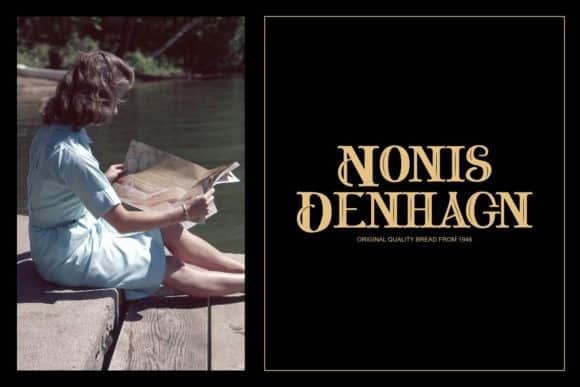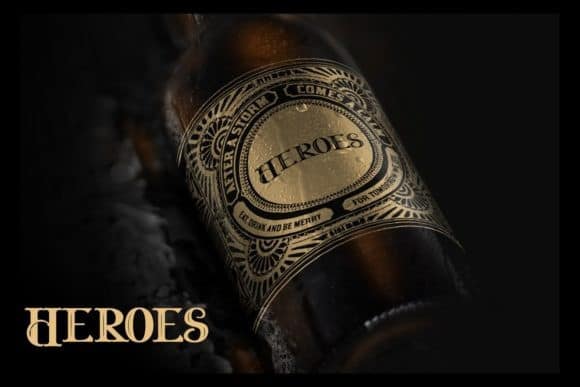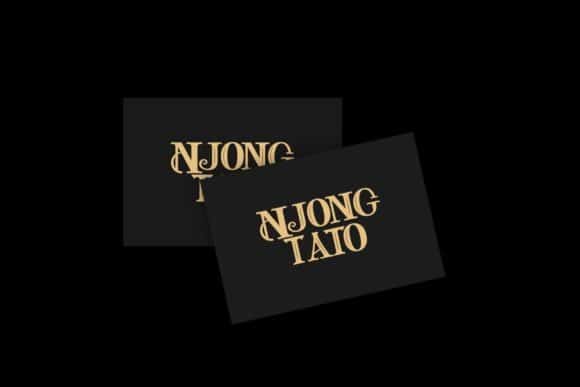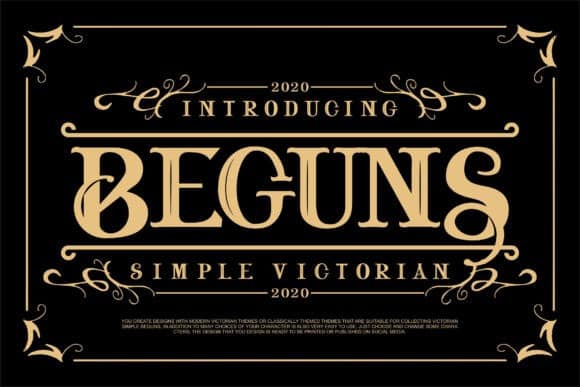
Beguns Display Font
Beguns Display Font is a strong modern sans serif style with All Caps feel nice balanced. This typeface is designed and shared by Vunira. This font is an incredibly bold and elegant display font. Masterfully designed to become a true favorite, this font has the potential to bring each of your creative ideas to the highest level! Its wide range of uppercase with ligatures allow versatile design options and works perfectly for headlines, logos, posters, packaging, T-shirts and much more.